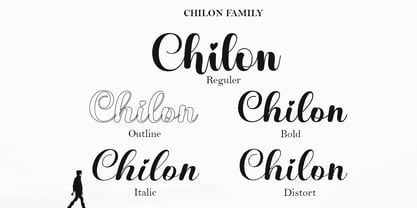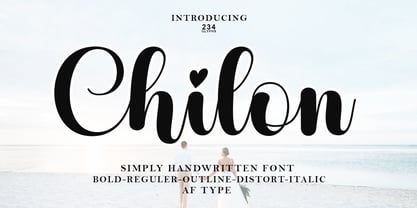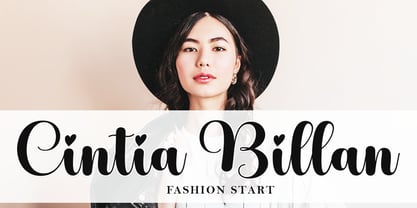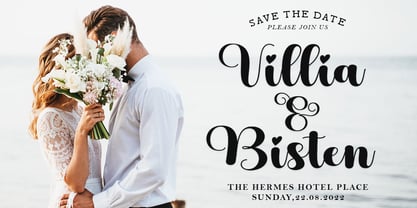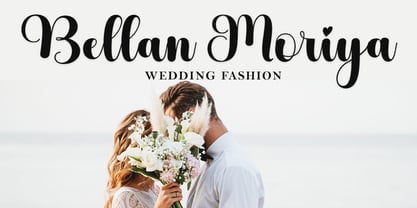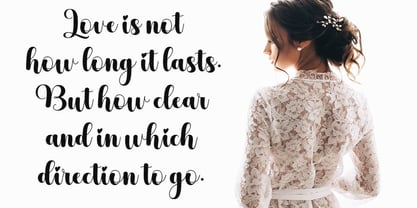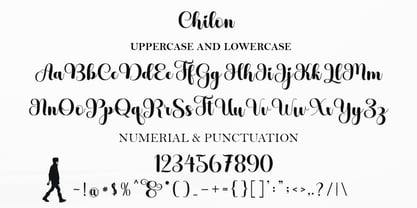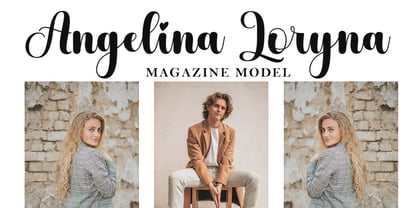
Chilon
by AF Type
The Chilon Font Family was designed by Al Qausar Firdaus and published by AF Type. Chilon contains 5 styles and family package options.
Chilon is a new variant of a beautiful script typeface with linkable hearts that is here to complete your script font collection. Hothen is perfect for branding, wedding invitations, business cards, posters, quotes, and other romantic projects.